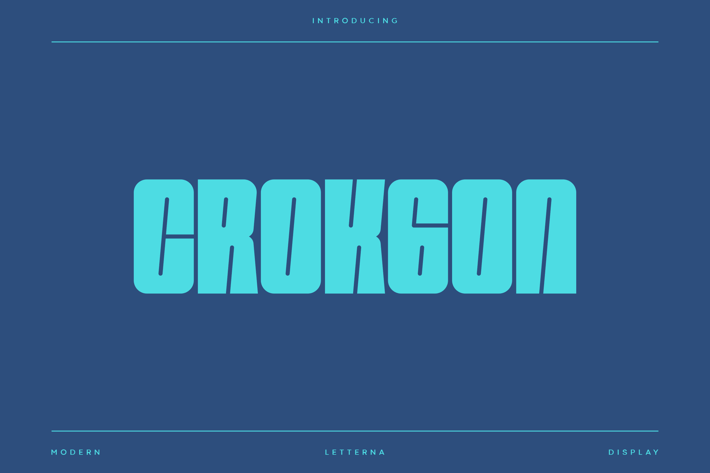
Crokgon - Modern Bold Typeface
Letterna
Crokgon is a display font with bold and modern characteristics, suitable for your designs that require a strong, firm, clear design but still look modern, friendly and not stiff. This beautiful and Creative typeface suitable for magazine, headline, block letter, subheading, logo designs, big banners decorative typography and web designs. Crokgon font is ready to support your amazing designs.
Punctuation & Number